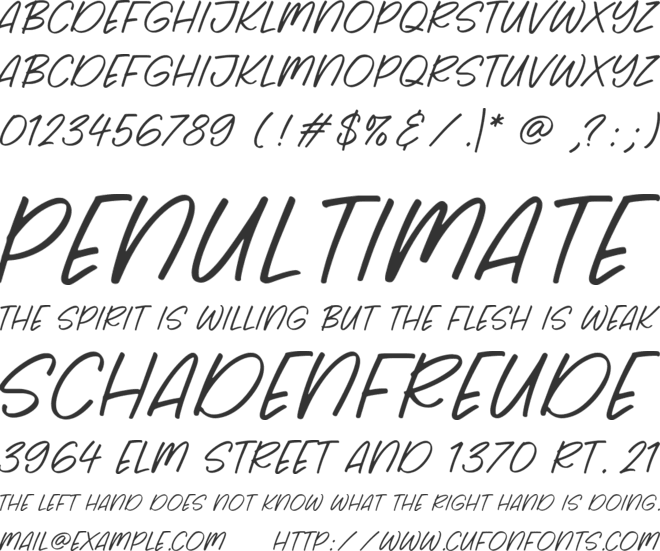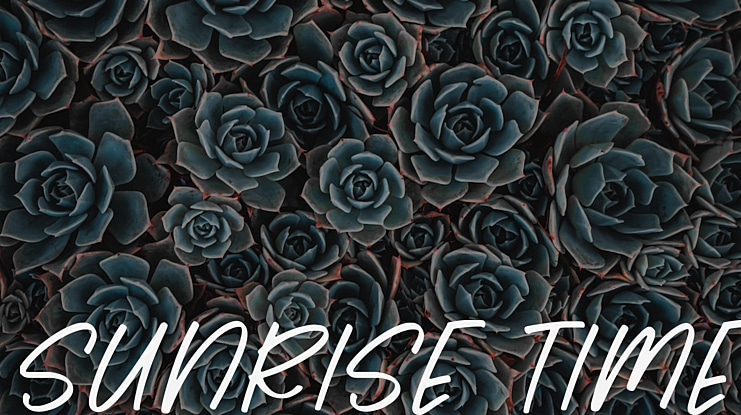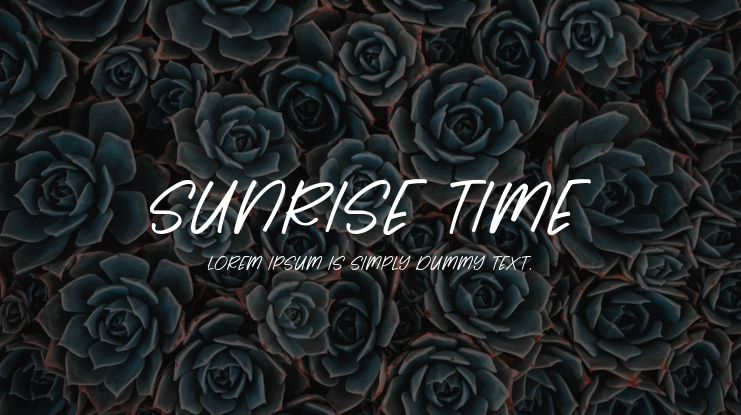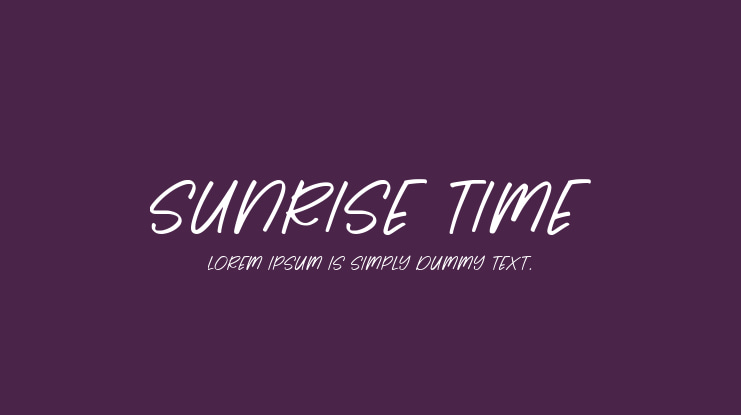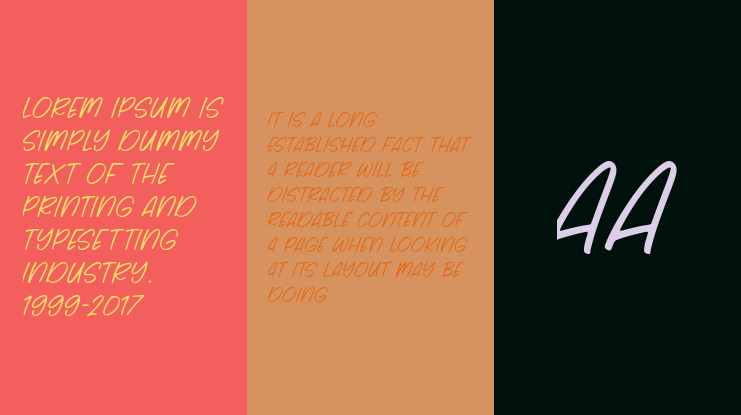
Sunrise Time Font
Sunrise Time Font is a charming hand-drawn typeface.
Whether you are crafting, designing digitally, creating presentations, or making greeting cards, this versatile font has the potential to be your favorite choice for any occasion!
The Sunrise Time Font features all capital letters.